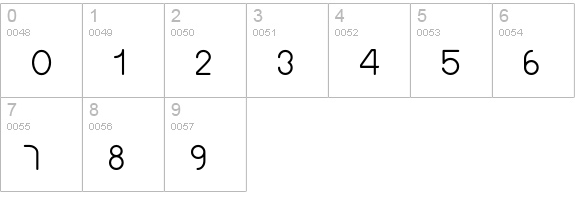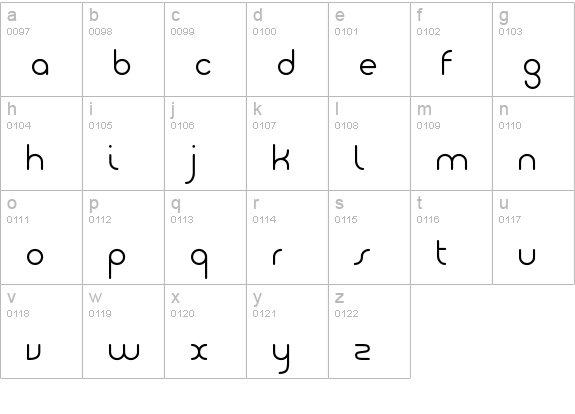
Giro Light is a refined, elegant variant in the Giro typeface family \xE2\x80\x94 well suited to elegant body text, refined sub-headings, and luxury branding.
Introducing Giro Light, a beautifully crafted font that effortlessly marries elegance with simplicity. This versatile typeface exudes a sense of sophistication while maintaining a clean and modern aesthetic. With its sleek lines and delicate curves, Giro Light seamlessly blends into any design project, from branding and logos to headlines and body text. What sets Giro Light apart is not only its stunning visual appeal, but also its accessibility. This font is freely available to download at FontsMarket.com, making it an invaluable resource for designers, artists, and creatives alike. Whether you're a professional looking to elevate your work or an enthusiast experimenting with typography, Giro Light offers the perfect balance of style and practicality. The beauty of Giro Light lies in its versatility. Its slim and refined letterforms lend themselves effortlessly to both digital and print mediums, ensuring a seamless transition across various platforms. Whether you're designing a website, creating a magazine layout, or crafting social media graphics, Giro Light will adapt flawlessly to your needs. The attention to detail exhibited in Giro Light is evident in every glyph, each meticulously crafted to create a harmonious and balanced typeface. The thoughtful spacing and carefully considered proportions ensure optimum legibility and readability, even at smaller sizes. Giro Light effortlessly captures attention, while remaining effortlessly readable, a testament to its impeccable design. Giro Light's clean and contemporary aesthetic makes it suitable for a wide range of projects, from minimalist designs to bold and expressive compositions. Its versatility allows it to be paired with a variety of other fonts, creating dynamic and visually stunning combinations. Whether used as a stand-alone font or in conjunction with others, Giro Light will always make a statement. So why wait? Embrace the elegance and versatility of Giro Light today. Download this exquisite font freely at FontsMarket.com and unlock a world of creative possibilities. Elevate your designs, captivate your audience, and make a lasting impression with Giro Light.